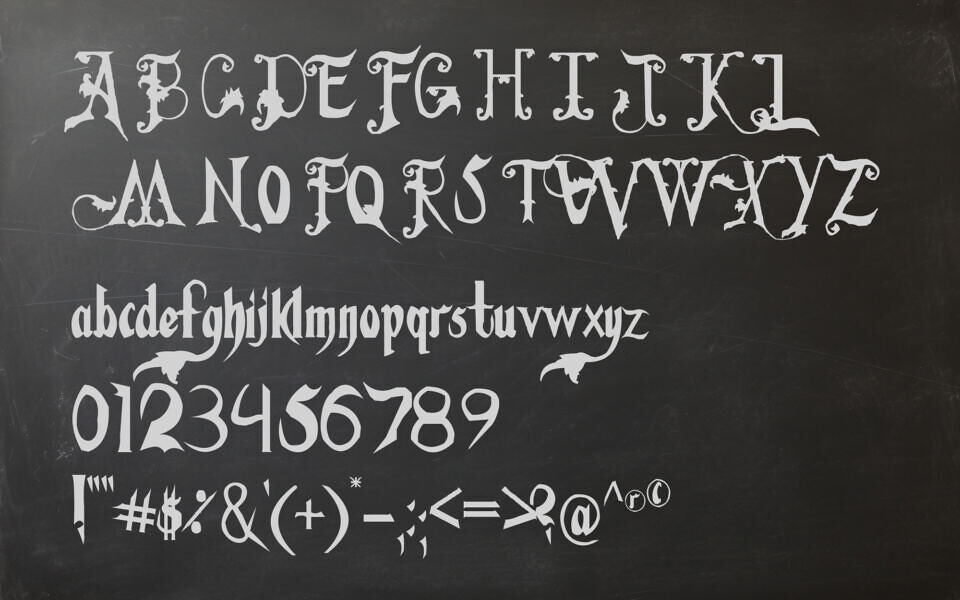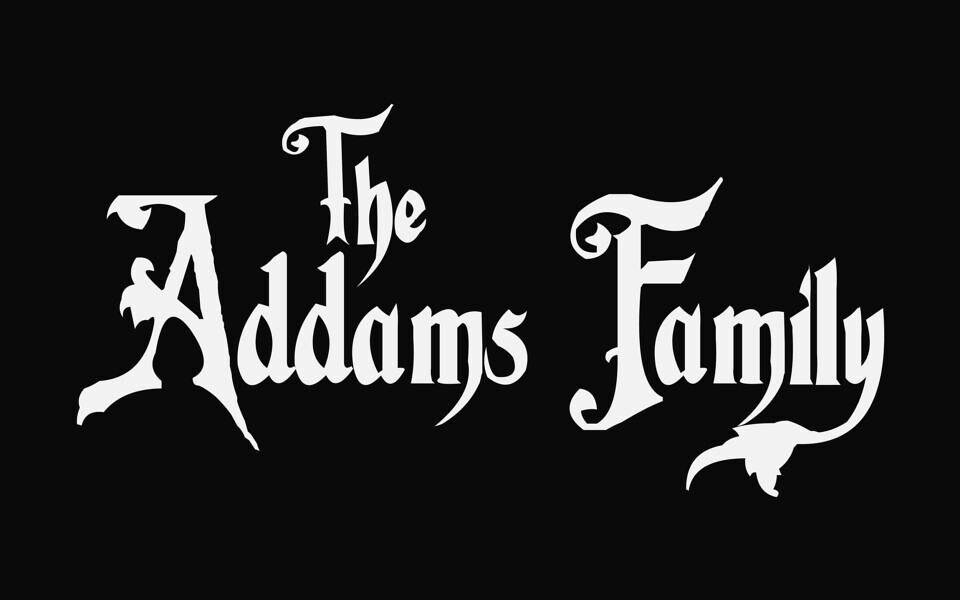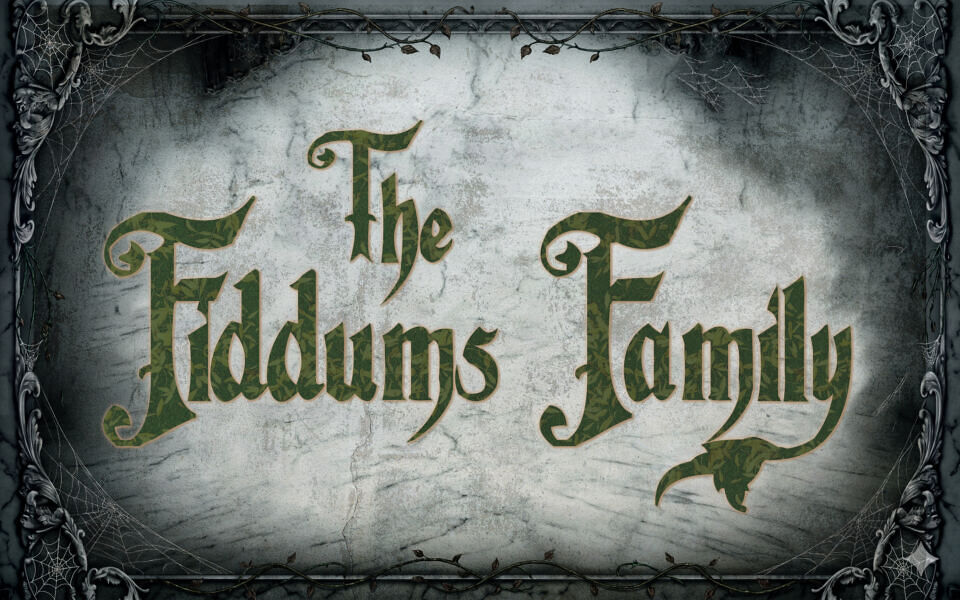
Fiddums Family Font
Fiddums Family perfectly captures the macabre and whimsical essence of the iconic Addams Family logo. This spooky, hand-drawn typeface features sharp, irregular letterforms that evoke a sense of classic Victorian gothic horror.
Its eccentric characters and creepy aesthetic make it an ideal choice for Halloween invitations, horror-themed branding, or any project needing a supernatural touch. With its vintage cinematic flair, this font brings a delightfully dark and mysterious personality to your designs, making every word look wonderfully weird and mysterious.